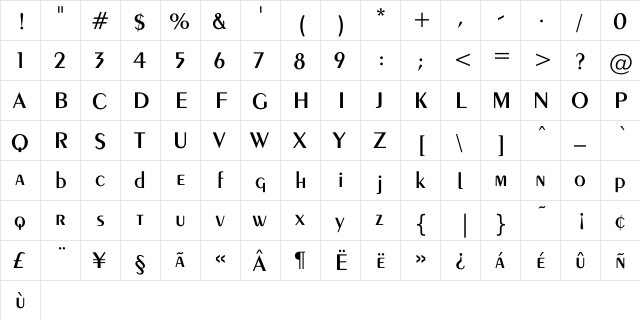
Exotic-Demi Regular
Design Context for Exotic-Demi Typeface
Exotic-Demi is a composed and adaptable typeface that performs quietly and consistently across a wide range of design contexts.